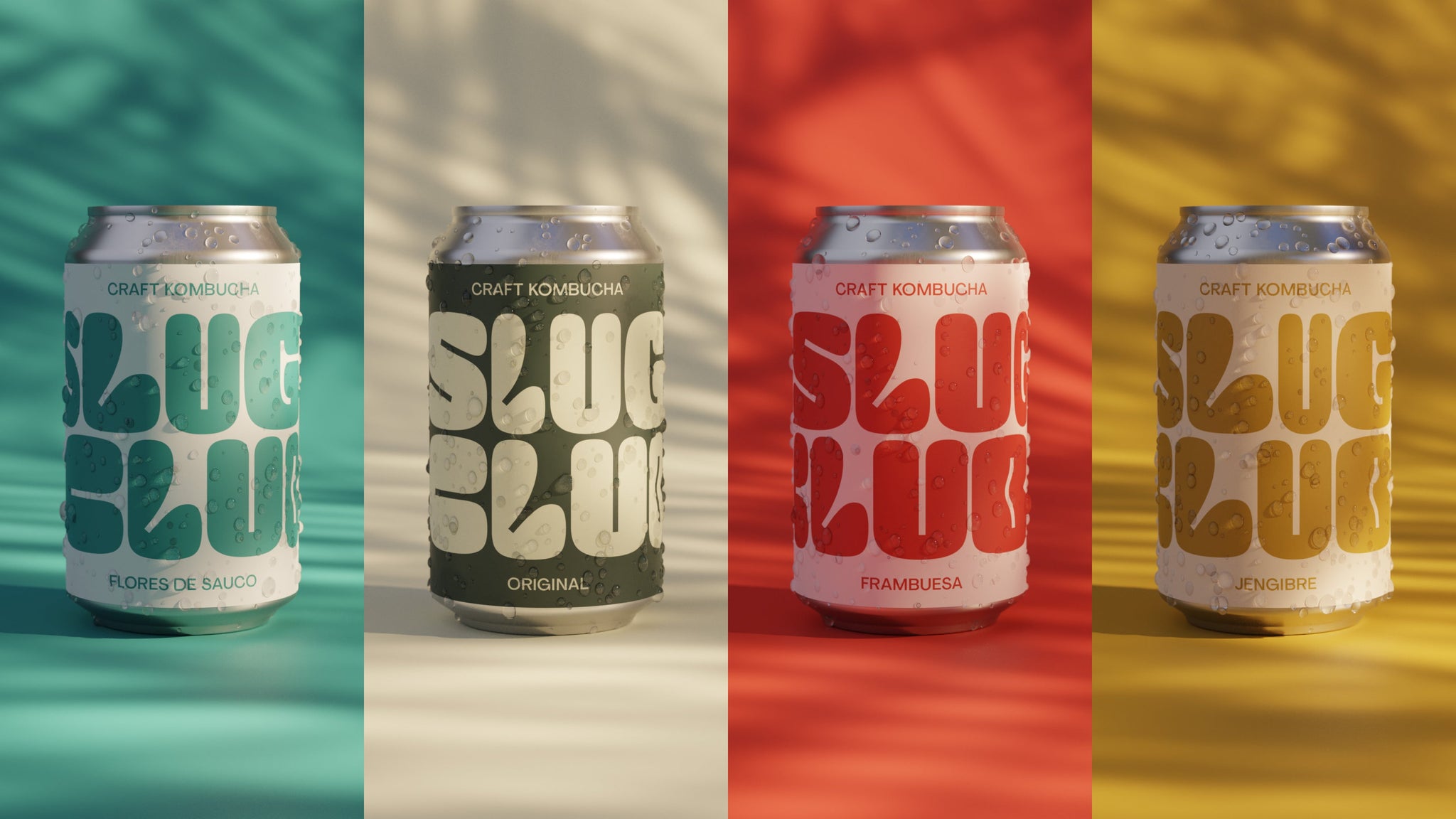
Slug Club is an elevated kombucha (literally!), created with Patagonian sourced ingredients, brewed and distributed in Argentina.
Our design studio was approached to create a complete branding and packaging suite. Although kombucha is a wildly popular beverage here in the States, it’s still bubbling up in South America. The rebrand helps to market Slug Club in a less disruptive beverage market with a flexible custom wordmark that feels both approachable and too cool for school.
The procession of thought is continued with our color palette and typography paired with the original Slug Club illustration, a piece of their original brand that we just loved too much to see go.
The end result was a tasty and intelligent system leading the way to a bright, fresh new cold one to crack at your next gathering.